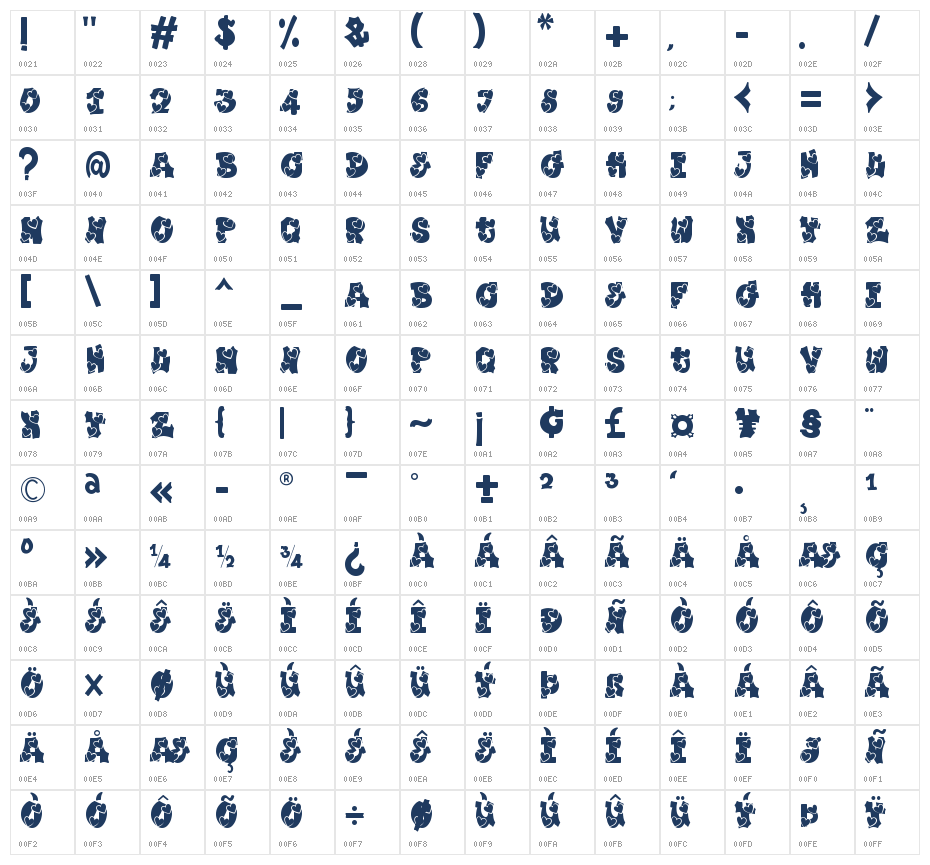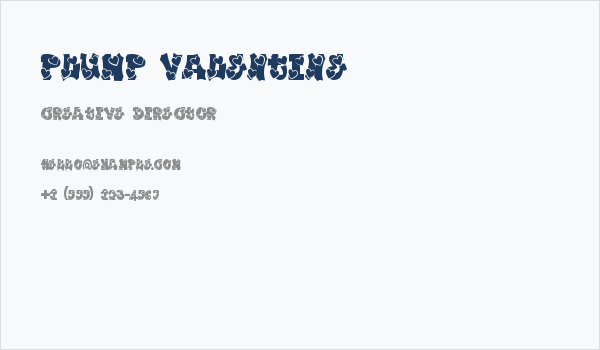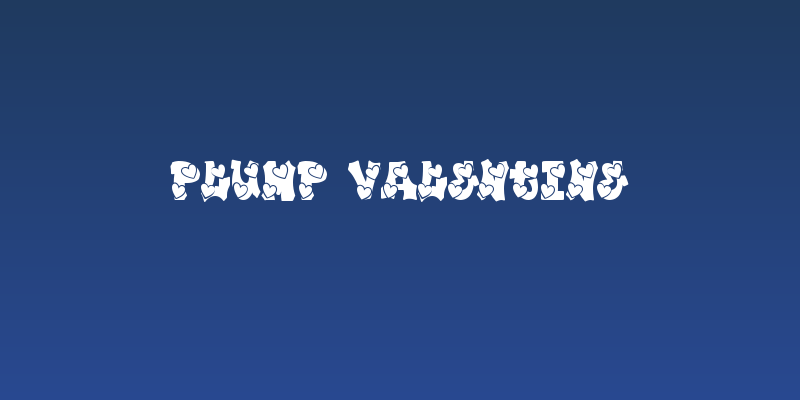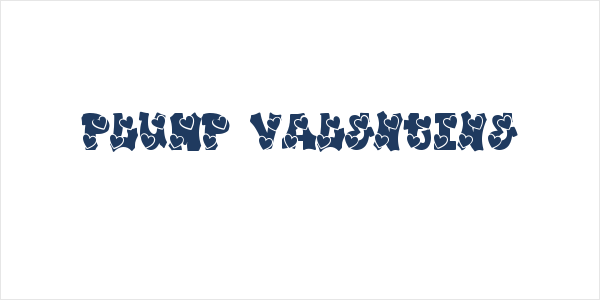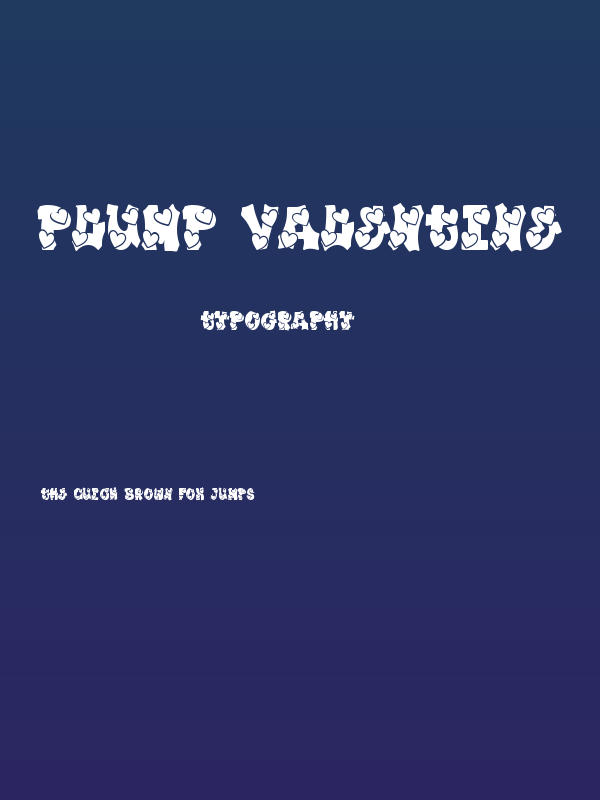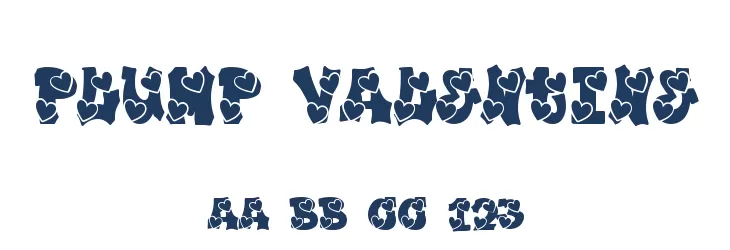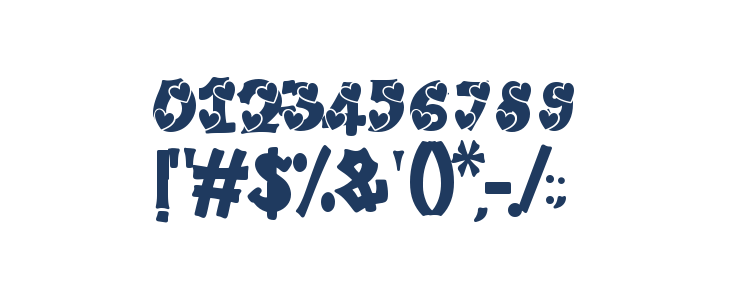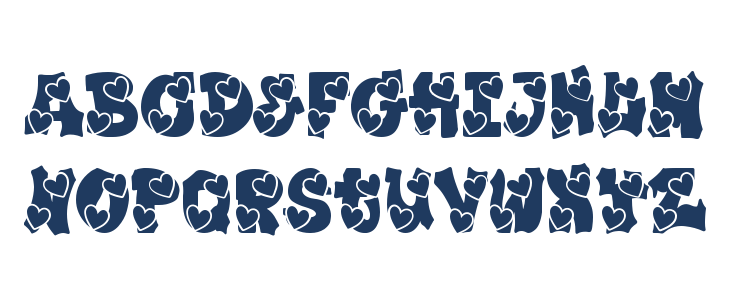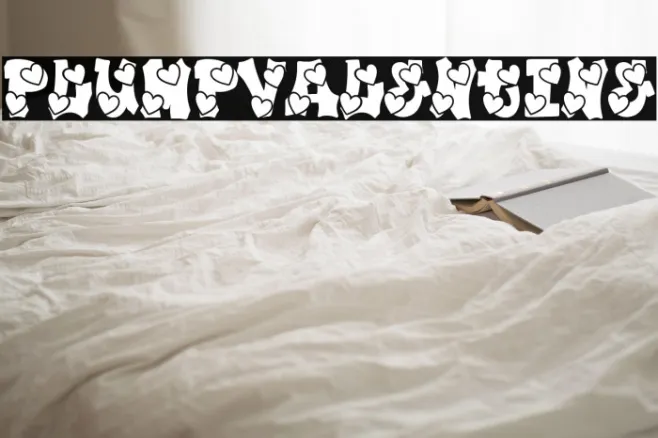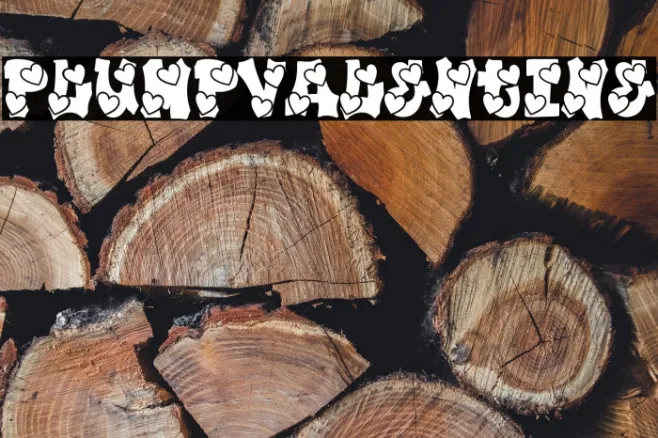
Plump Valentine Font
Plump Valentine Description
A playful, decorative font with bold, chunky characters adorned with heart shapes, giving it a whimsical and fun appearance.
Plump Valentine
| Overall Style | Whimsical, Playful, Decorative |
| Use Case | Headlines, Logos, Greeting Cards, Children's Products |